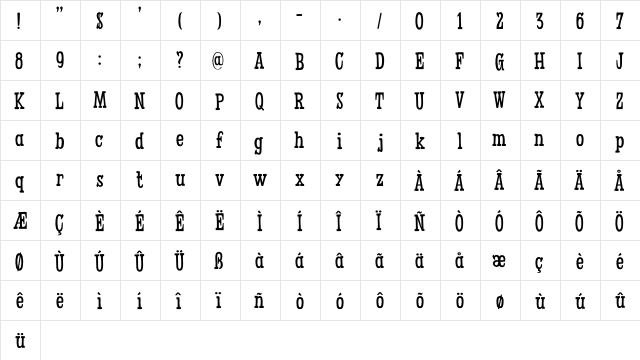
Fleabitten DEMO Regular
| Foundry | David Kerkhoff |
| Designer | David Kerkhoff |
Design Context for Fleabitten DEMO Typeface
Fleabitten DEMO takes a measured approach to typography — its balanced proportions and neutral character make it a reliable workhorse for both digital and print work.